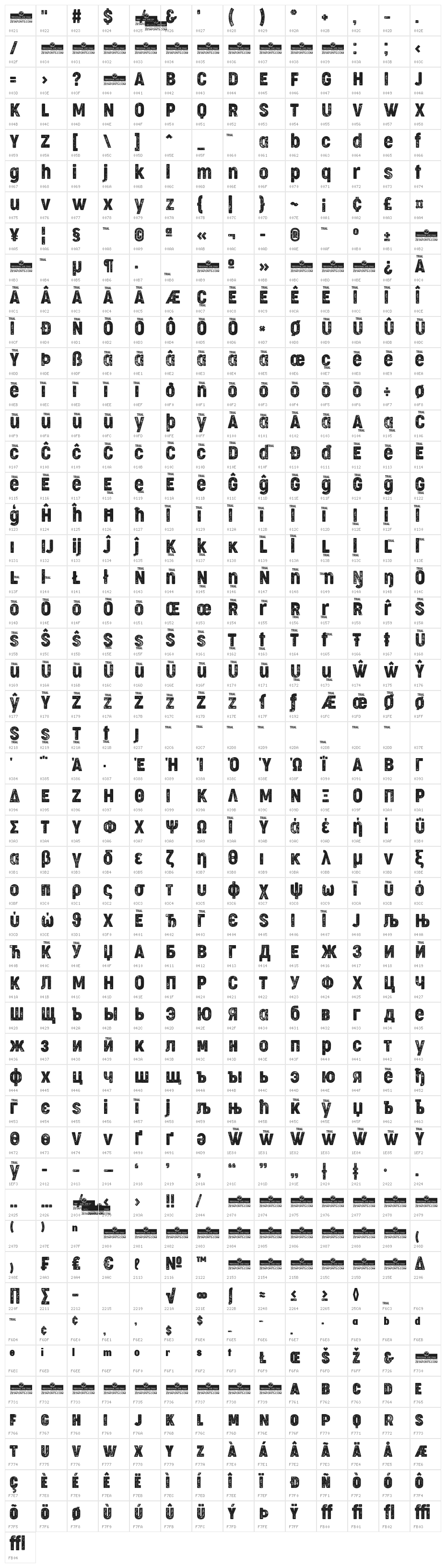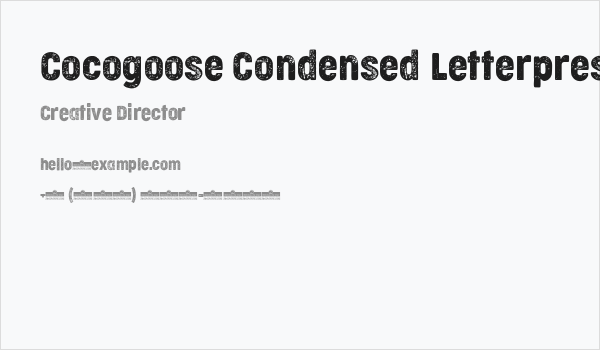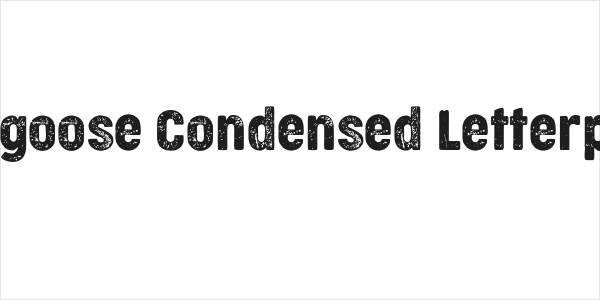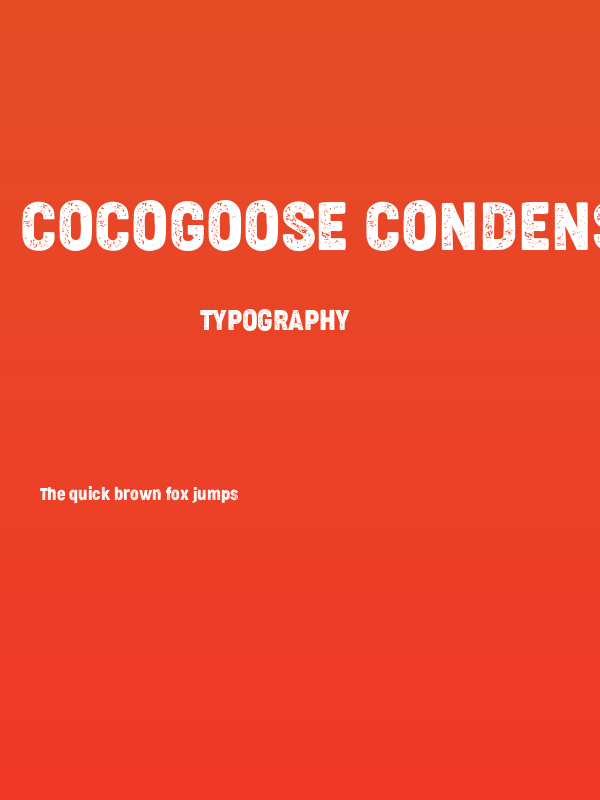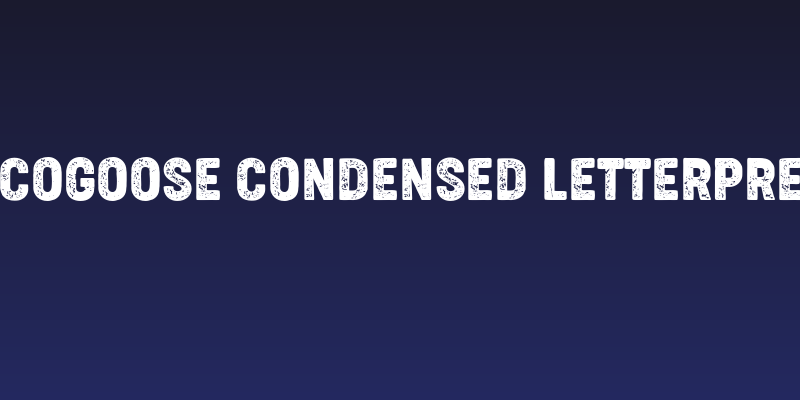
Cocogoose Condensed Letterpress Font
Cocogoose Condensed Letterpress Description
This font features a bold, condensed style with a distinctive letterpress effect, giving it a textured, worn appearance. The uppercase and lowercase letters maintain a consistent weight, providing a strong visual impact. The characters are tightly spaced, enhancing the compact nature of the font. The distressed texture adds a vintage, industrial feel, making it ideal for projects that require a rugged, handcrafted look. The numerals and special characters follow the same design, ensuring uniformity across all text elements. This font is perfect for creating eye-catching headlines, posters, and branding materials that need a bold statement.
| Proposed Projects | Perfect for posters, branding, packaging, and any design requiring a bold, vintage aesthetic. |